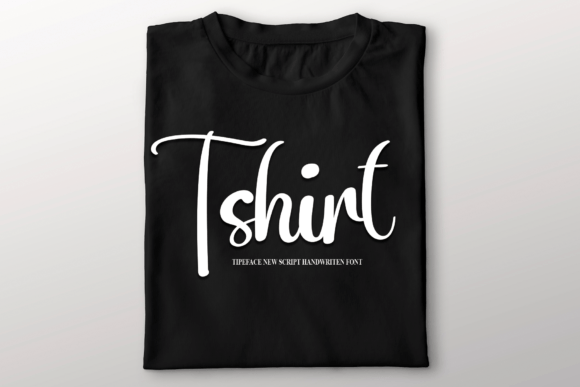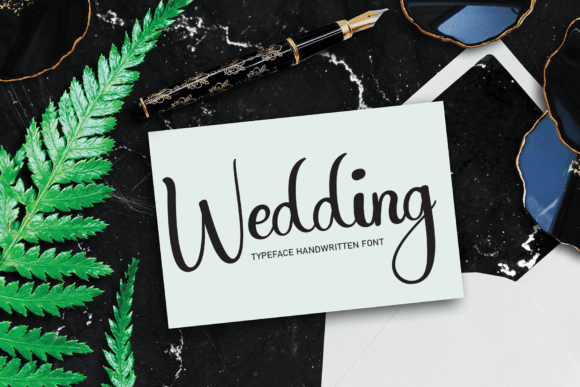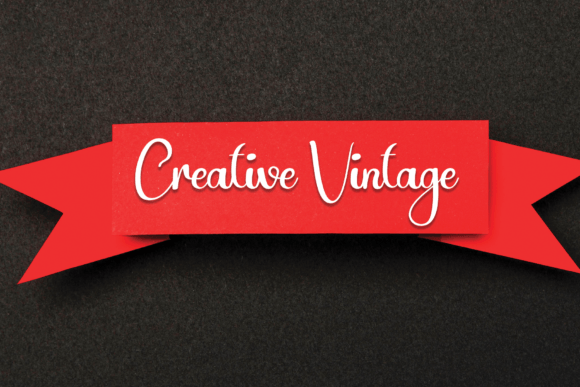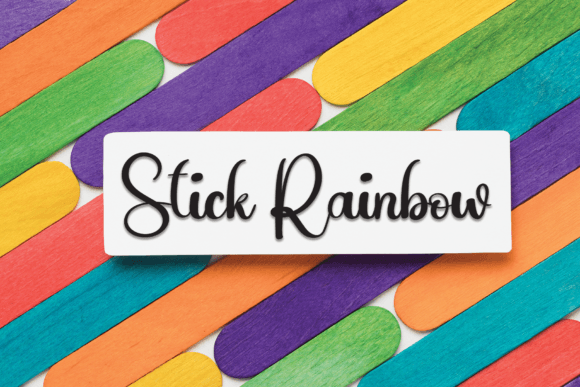
Tshirt Font
Bring a Friendly Touch with Tshirt Font
Tshirt Font is a delightful handwritten typeface that adds personality and charm to your designs. With its smooth curves and casual style, this font is a great choice for creatives who want to add a fun, approachable feel to their work. Whether you’re designing something for print or digital, this font will fit seamlessly into your project.
Why Choose Tshirt Font?
From the start, Tshirt Font was crafted to bring a balance between legibility and creativity. Its handwritten look makes it stand out while still being easy to read, even at smaller sizes. This balance makes it highly versatile and suitable for many design situations.
You can confidently use it in:
• Crafts and DIY Projects – Add a personalized feel to handmade items.
• Digital Designs – Perfect for banners, website headers, or quote posts.
• Greeting Cards – Its warm style gives messages a human touch.
• Presentations – Use it for friendly slide titles and callouts.
By using this font, your designs can feel more authentic and relatable, helping you better connect with your audience.
Elevate Every Occasion
Whether you’re designing for a birthday party, holiday card, school project, or brand identity, Tshirt Font can bring a cheerful and down-to-earth vibe. Its friendliness makes it especially effective in informal branding, personalized merchandise, social media graphics, and more.
The name “Tshirt” fits perfectly—it’s relaxed, easygoing, and ready to wear into any design concept. Much like your favorite tee, this font feels good every time you use it.